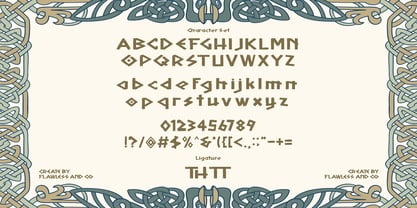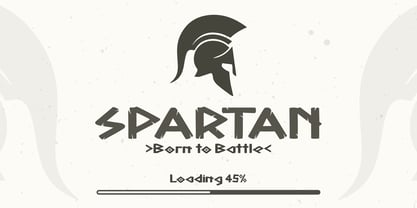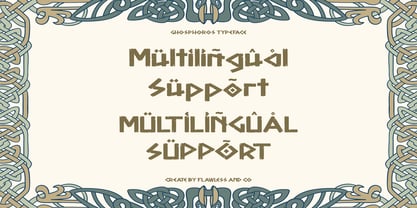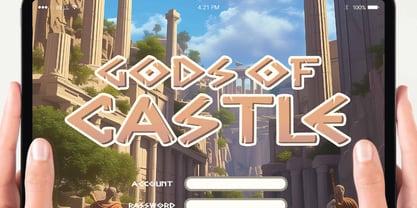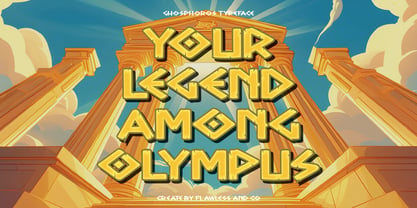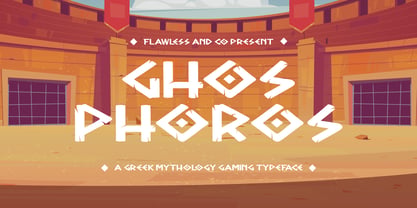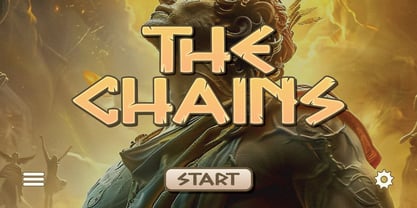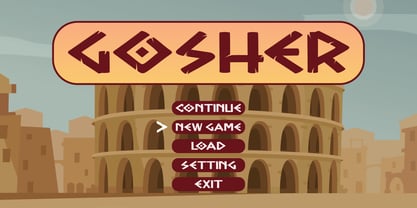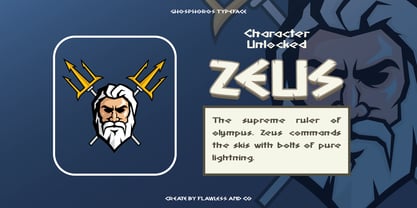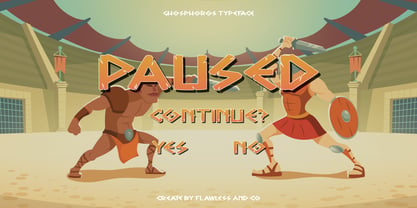
Ghosphoros
La familia tipográfica Ghosphoros fue diseñada por Achmad Yani y publicada por Flawlessandco. Ghosphoros contiene 1 estilos. Más información sobre esta familia
GHOSPHOROS, a bold and battle-ready typeface forged from the essence of Greek mythology and epic storytelling. With sharp angles, stone-carved edges, and a heroic spirit, this font is built to command attention in gaming interfaces, title screens, and fantasy-themed branding. Whether you’re designing for epic RPGs, action-packed arenas, or mythological quests, GHOSPHOROS brings a sense of power, legacy, and ancient might to your visual designs. Perfect for developers, storytellers, and designers who want their work to echo through the ages.
Features :
Multilingual, Uppercase alphabet A-Z, Lowercase alphabet a-z, Numbers 0-9, Some punctuation, Alternates & Ligatures